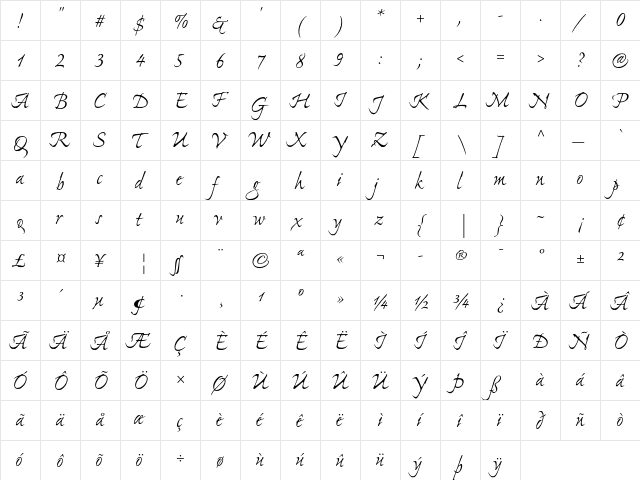
Ex Ponto Regular
Design Context for Ex Ponto Typeface
Ex Ponto is a composed and adaptable typeface that performs quietly and consistently across a wide range of design contexts.